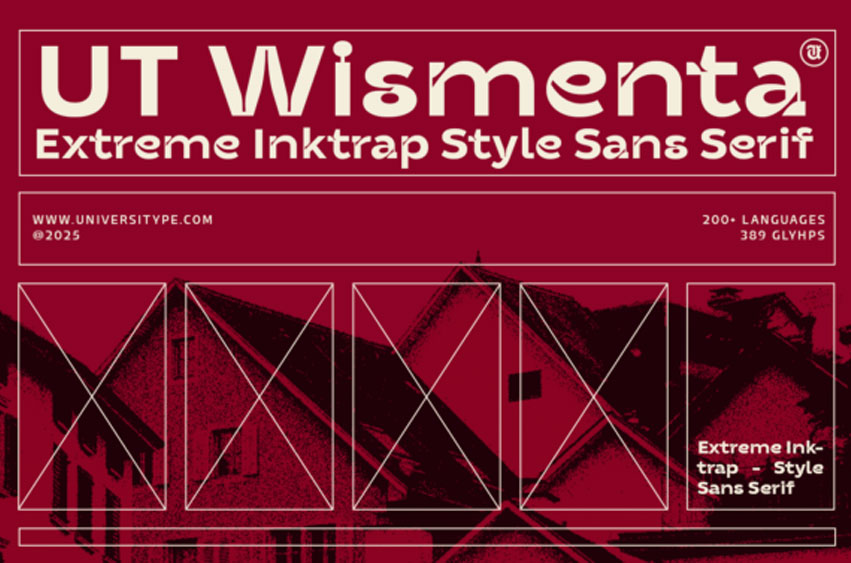
Ut Wismenta Font is a revolution in typeface design that shatters the silence with its audacious appeal. This invitingly bold display font emerges from the sophisticated structure of Swiss modernism, infused with an unfettered spirit brought to life by extreme ink traps. Despite being grounded in grid logic, UT Wismenta daringly deviates through its temerarious, expressive forms. Beyond conventional communication, this sans serif typeface offers a statement-making style that cannot go unnoticed.
UT Wismenta has been carefully crafted to cater to the audacious and inventive minds desiring to leap out of conformity. It’s an impeccable choice for graphic designers, typographers, and artists aiming to infuse a fresh, contemporary vibe into their branding, compelling editorial layouts, engaging packaging, and intuitive digital interfaces.
The standout qualities of UT Wismenta lie in its striking Extreme Inktrap Style. Sharp, overstated ink traps bestow the font with a distinctive, handcrafted aura. Despite its intensity, the font remains versatile across a wide range of sizes, maintaining its sharpness and visibility from 10pt to 48pt without compromising on impact.
Embracing a global vision, UT Wismenta provides multilingual support that covers over 200 languages, establishing it as a top choice for international ventures. Accompanied by a wide assortment of 389 glyphs, it offers abundant options for unique characters and symbols enriching various visual narratives.
UT Wismenta converses in the inspired language of the Swiss Design movement which, in turn, borrowed from the groundbreaking modernist movements notably Bauhaus (1919-1933), and De Stijl (1917-1931). Swiss Design championed a compelling direction: an emphasis on straightforwardness, functionality yet honoring the beauty of grids, sans-serif typefaces, and an asymmetric layout.
The inspiring influence of the Bauhaus movement, which stressed the harmonious integration of art, craft, and technology, set a design precedent that was as pragmatic as it was visually captivating. De Stijl’s stress on simplicity and abstraction streamlined this aesthetic, employing primary colors and geometric shapes to convey order and balance. Swiss Design took these principles and expanded on them, birthing a design style that was disciplined yet full of zest, structured yet free-spirited. This design revolution claimed Switzerland and the globe, making its mark on everything from advertising to architecture, book design to product packaging.